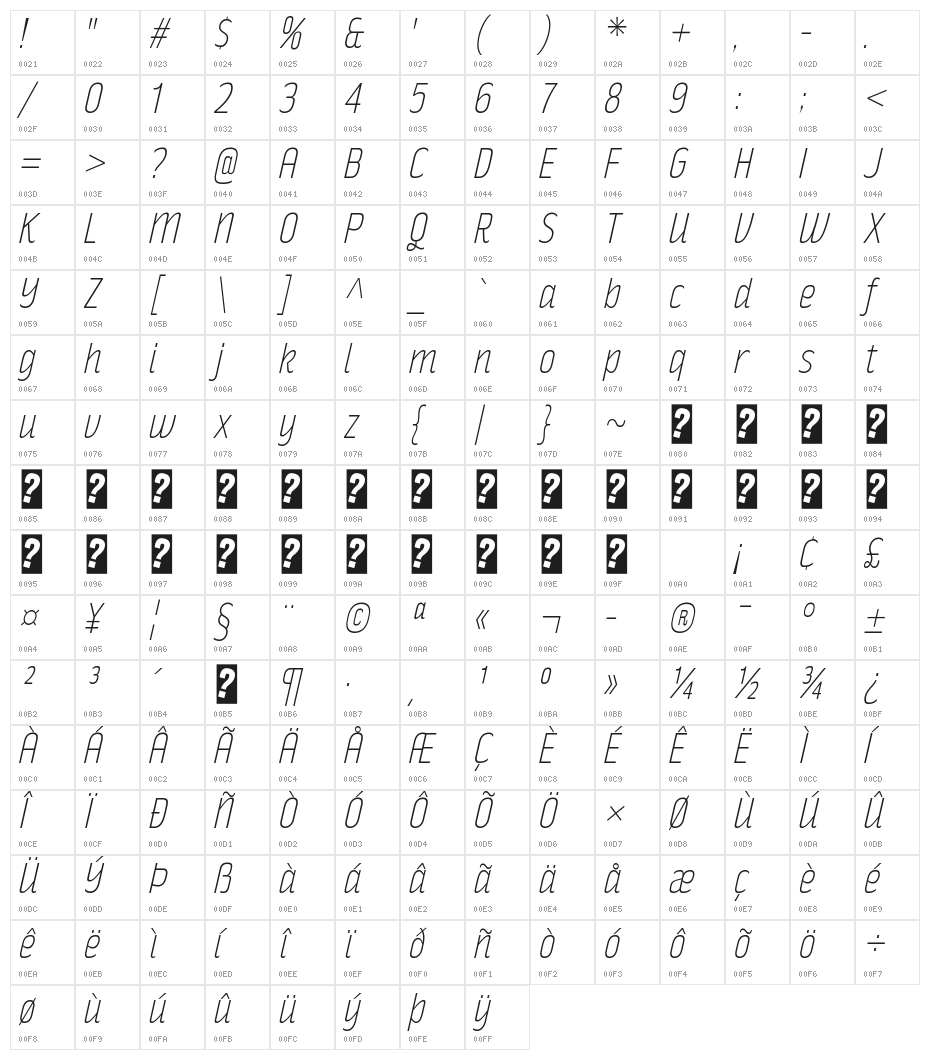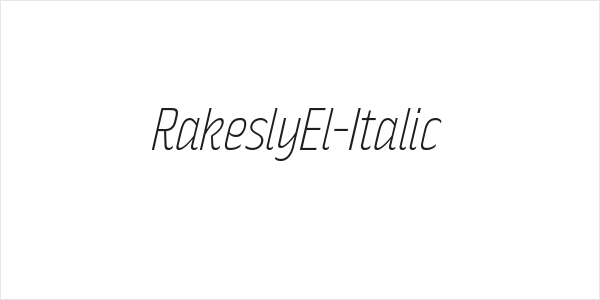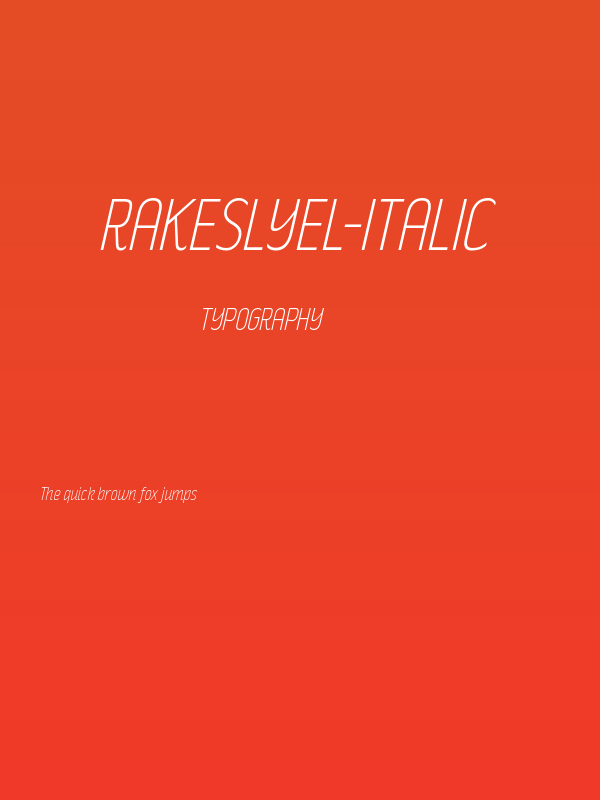
RakeslyEl-Italic Font
RakeslyEl-Italic Description
This font features a sleek, modern design with a distinct italic slant, giving it a dynamic and elegant appearance. The characters are elongated with a consistent stroke width, contributing to a clean and sophisticated look. The uppercase and lowercase letters maintain a harmonious balance, while the numerals and special characters are crafted with the same attention to detail. The font's overall style is minimalistic yet expressive, making it suitable for a variety of design applications.
| Proposed Projects | Ideal for branding, editorial design, fashion magazines, and modern web design projects. |